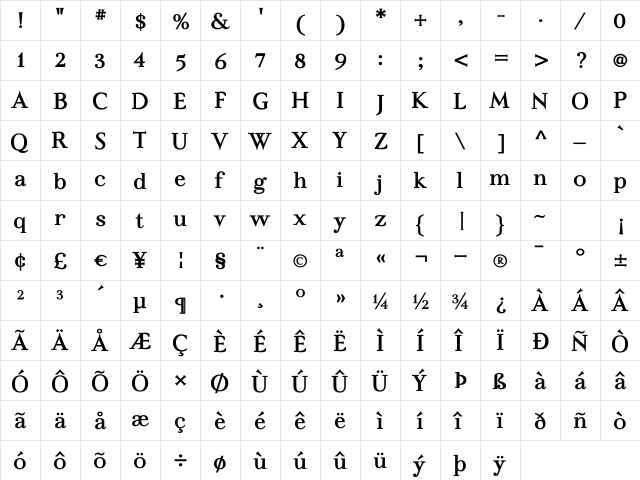
Felina SerifSmall Print Regular
Design Context for Felina SerifSmall Print Typeface
Felina SerifSmall Print carries the refined structure of traditional serif typography, with bracketed terminals and considered proportions that communicate credibility and craft.
Pro Tip: Set Felina SerifSmall Print with slightly loose tracking in headlines to let each letterform's detail read clearly at display sizes.